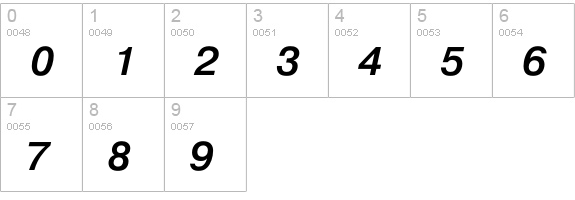
Pragmatica Medium Oblique Font Details
Pragmatica Medium Oblique is a balanced, medium-weight, italic variant in the Pragmatica typeface family \xE2\x80\x94 well suited to sub-headlines, navigation, and balanced editorial work.
Pragmatica Medium Oblique font is a versatile and elegant typeface that strikes the perfect balance between professionalism and creativity. With its slanted style, this font exudes a sense of dynamism and modernity, making it ideal for a wide range of design projects. The Pragmatica Medium Oblique font is designed with readability and functionality in mind, making it a practical choice for both print and digital applications. Its clean lines and subtle curves lend a sense of sophistication to any design, while its medium weight adds a touch of flair without overwhelming the overall aesthetic. Whether you are working on a branding project, editorial layout, or web design, the Pragmatica Medium Oblique font is sure to make a statement. Its versatility allows it to be used for headlines, body text, and everything in between, giving you the flexibility to create cohesive and visually appealing designs. Best of all, the Pragmatica Medium Oblique font is freely available to download at FontsMarket.com. So you can add this stylish and functional typeface to your font library without breaking the bank. Download it today and elevate your design projects with the timeless appeal of Pragmatica Medium Oblique font.